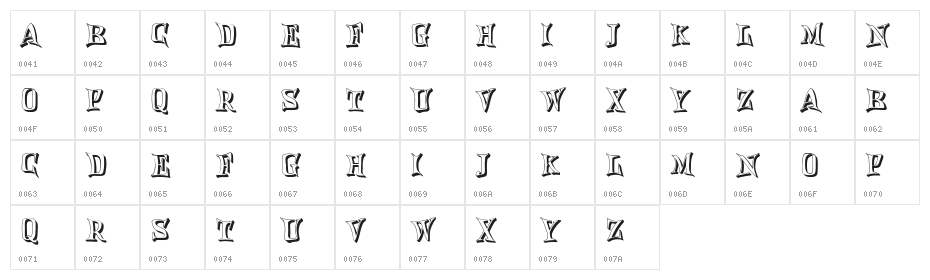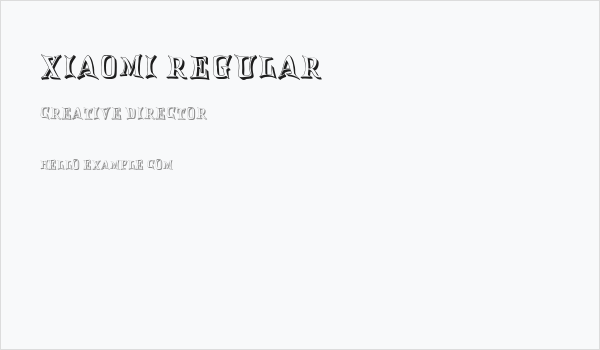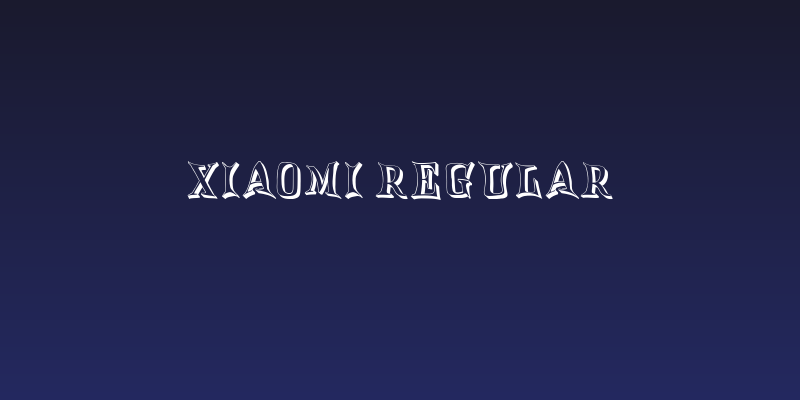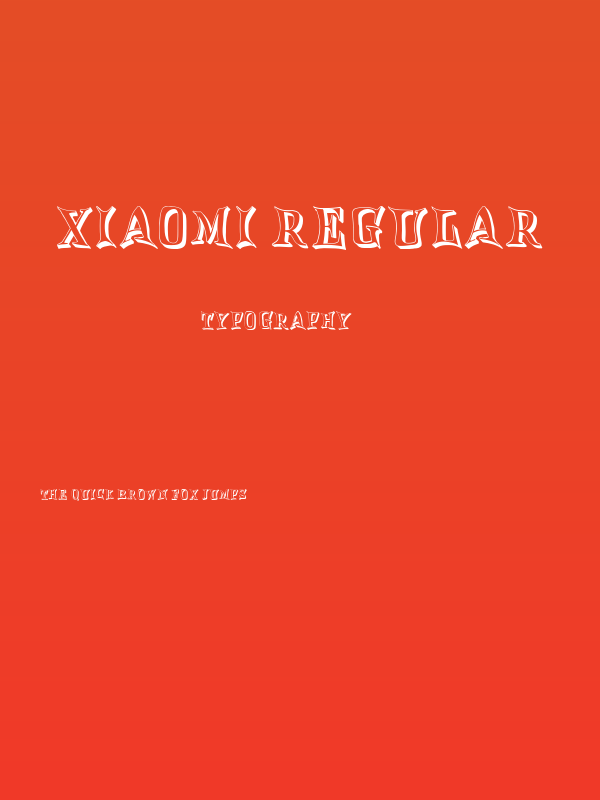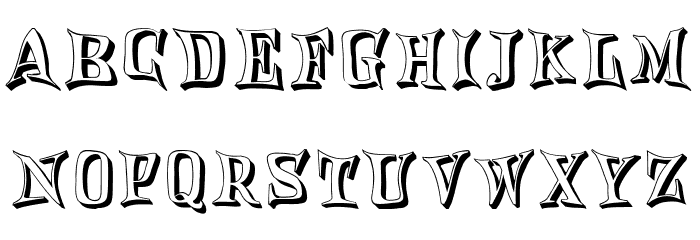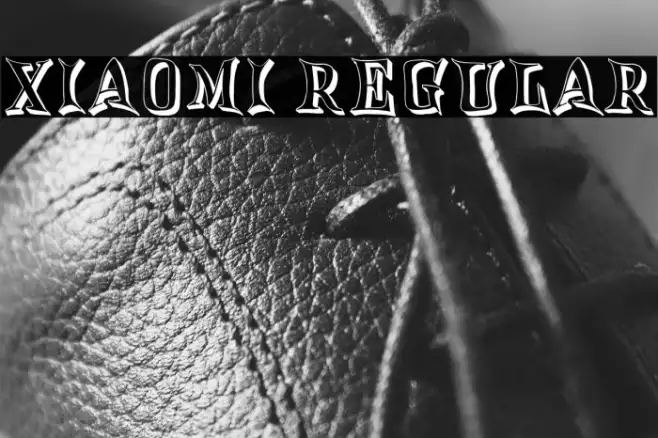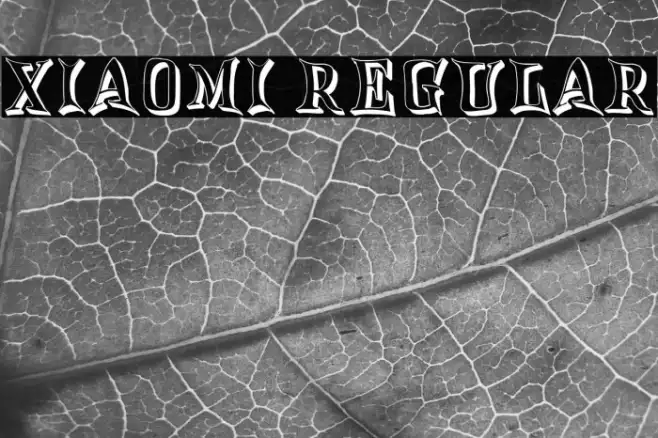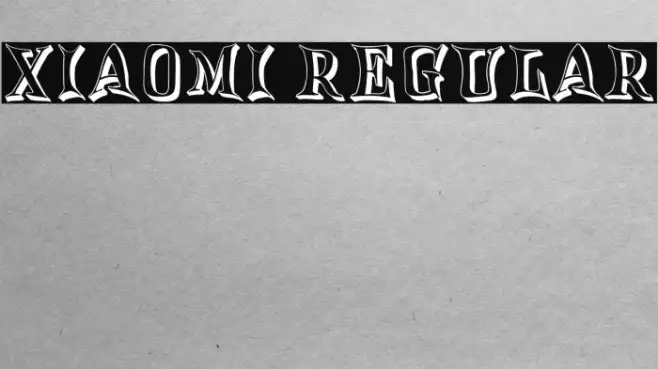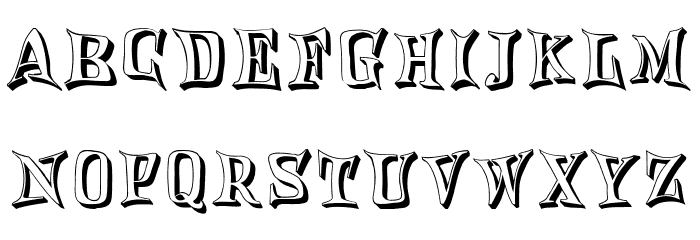
Xiaomi Regular Font
Xiaomi Regular Description
This font features a bold, decorative style with a distinct blackletter influence. Each character is intricately designed with sharp, angular edges and a slight curvature, giving it a dynamic and bold appearance. The uppercase letters are particularly striking, with elaborate serifs and a strong presence. The font maintains a consistent weight throughout, ensuring readability while still offering a unique and artistic flair. The spacing between characters is relatively tight, which enhances the cohesive look of the text. This font is ideal for projects that require a dramatic and eye-catching typeface.
| Proposed Projects | Ideal for posters, logos, branding, and any project requiring a dramatic and artistic typeface. |